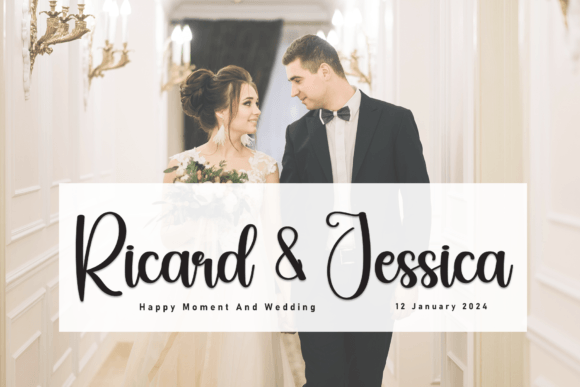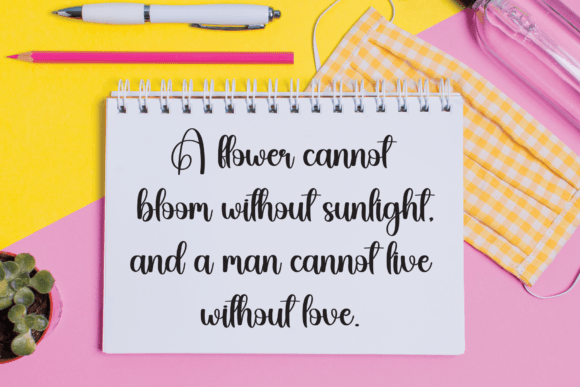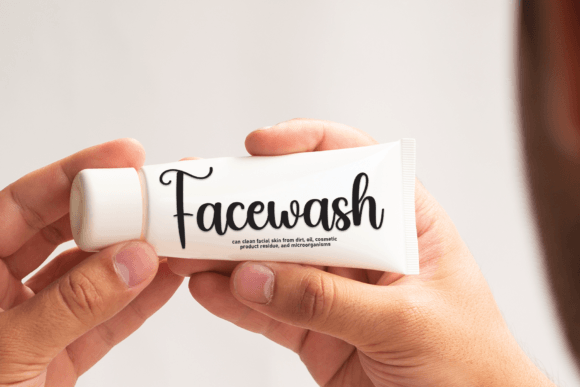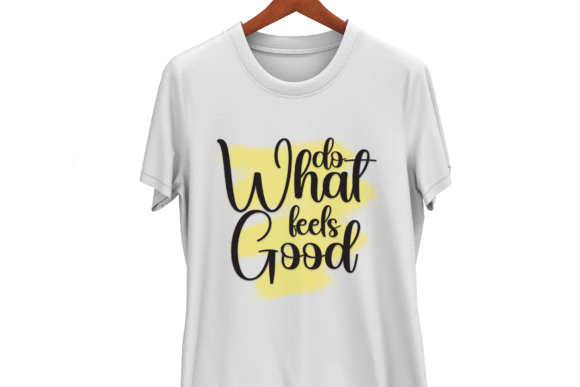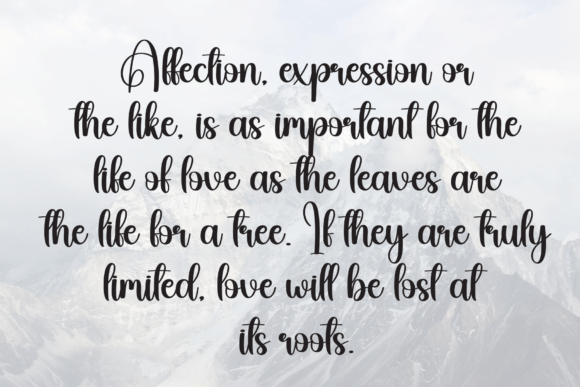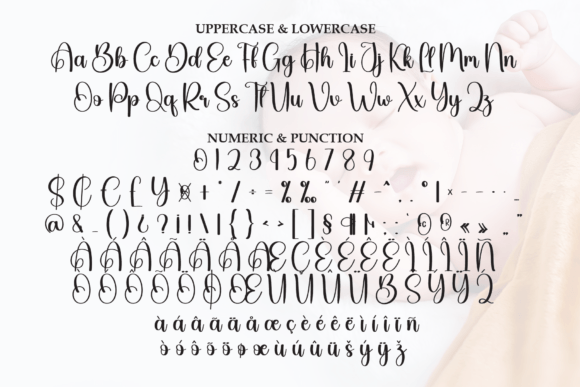
Babyish Font: The Sweet and Cursive Handwritten Font for Your Design Needs
Are you a designer or crafter looking for a font that can add a touch of sweetness and romance to your projects? Look no further than the Babyish font! This gentle, cursive handwritten font is perfect for a variety of design ideas and is sure to bring a joyful and romantic feel to your work.
What is Babyish Font?
Babyish is a sweet and cursive handwritten font that is designed to bring a touch of innocence and charm to your designs. With its flowing lines and delicate curves, this font is perfect for creating beautiful and eye-catching text that will capture the attention of your audience. Whether you’re working on a logo, invitation, or social media post, Babyish font is sure to make your project stand out.
Features of Babyish Font
So, what makes Babyish font so special? Here are just a few of its key features:
- Sweet and Cursive Design: Babyish font has a beautiful, cursive design that is both sweet and elegant. Its flowing lines and delicate curves make it perfect for creating beautiful text that will add a touch of romance to your projects.
- Handwritten Style: This font has a handwritten style that gives it a personal and unique touch. It’s perfect for creating designs that feel warm and inviting.
- Versatile: Babyish font is incredibly versatile and can be used on a variety of design ideas, from logos and invitations to social media posts and more.
- Easy to Read: Despite its delicate design, Babyish font is easy to read, making it perfect for creating text that needs to be understood quickly and easily.
Uses for Babyish Font
So, what can you use Babyish font for? The possibilities are endless! Here are a few ideas to get you started:
- Invitations: Babyish font is perfect for creating beautiful and elegant invitations for weddings, baby showers, and other special occasions.
- Logos: This font can be used to create a logo for your business or brand that is both sweet and professional.
- Social Media Posts: Add a touch of romance and whimsy to your social media posts with Babyish font.
- Stationery: Use Babyish font to create beautiful stationery, including greeting cards, thank you cards, and more.
- Crafting Projects: This font is perfect for crafters who want to add a personal touch to their projects, including scrapbooking, journaling, and more.
Tips for Using Babyish Font
Here are a few tips for using Babyish font in your designs:
- Pair with Other Fonts: Babyish font looks beautiful when paired with other fonts, including bold and sans-serif fonts.
- Use on White or Light Backgrounds: This font looks best on white or light backgrounds, which help to make the text stand out.
- Experiment with Colors: Try using Babyish font in different colors to add a pop of color to your designs.
- Keep it Simple: Don’t be afraid to keep your design simple and elegant, allowing the font to be the star of the show.
In conclusion, Babyish font is a beautiful and versatile font that is perfect for designers and crafters who want to add a touch of sweetness and romance to their projects. With its sweet and cursive design, handwritten style, and ease of use, this font is sure to become a favorite in your design arsenal. So why wait? Give Babyish font a try today and see the difference it can make in your designs!